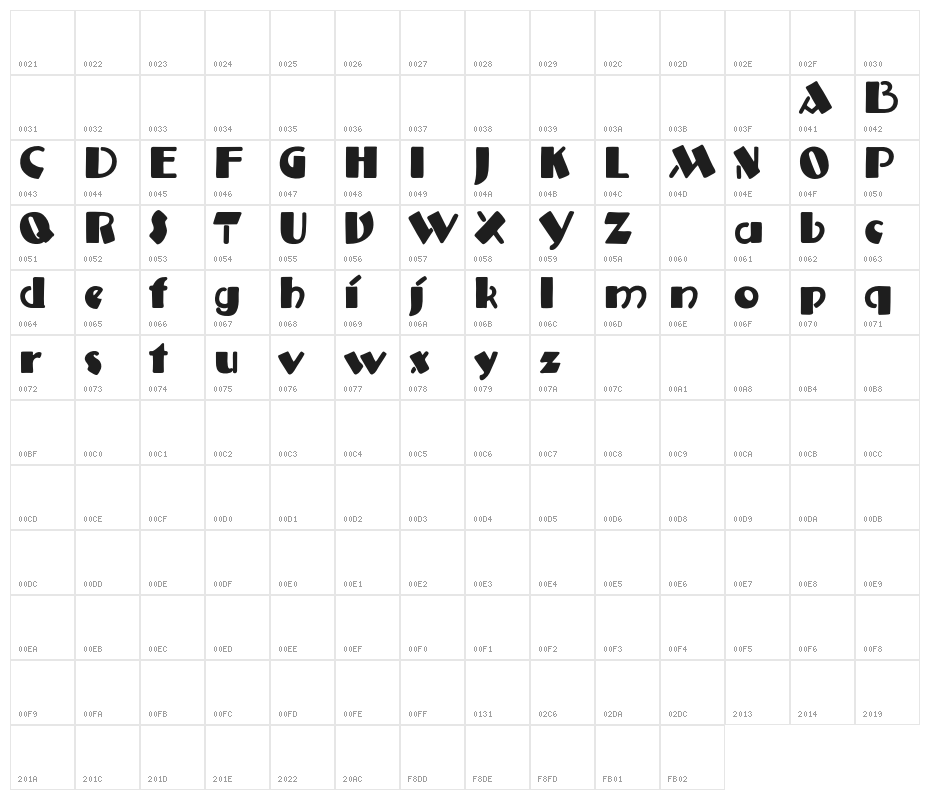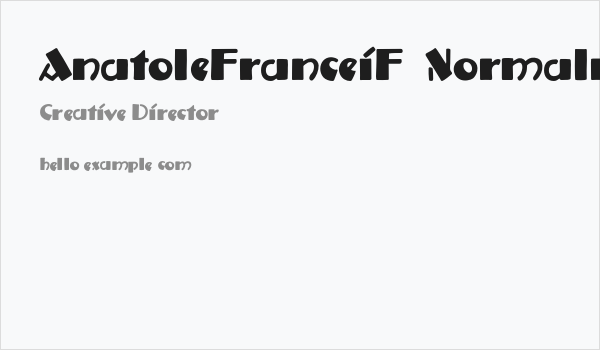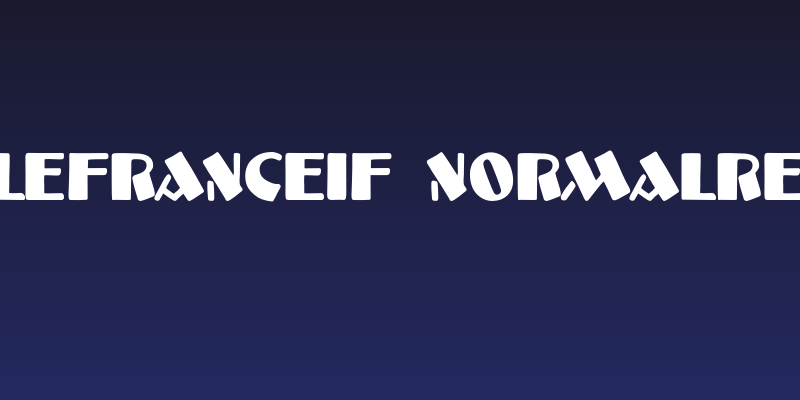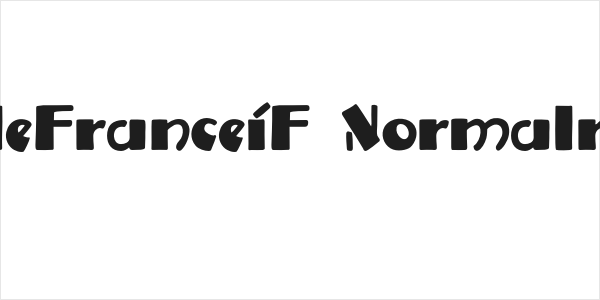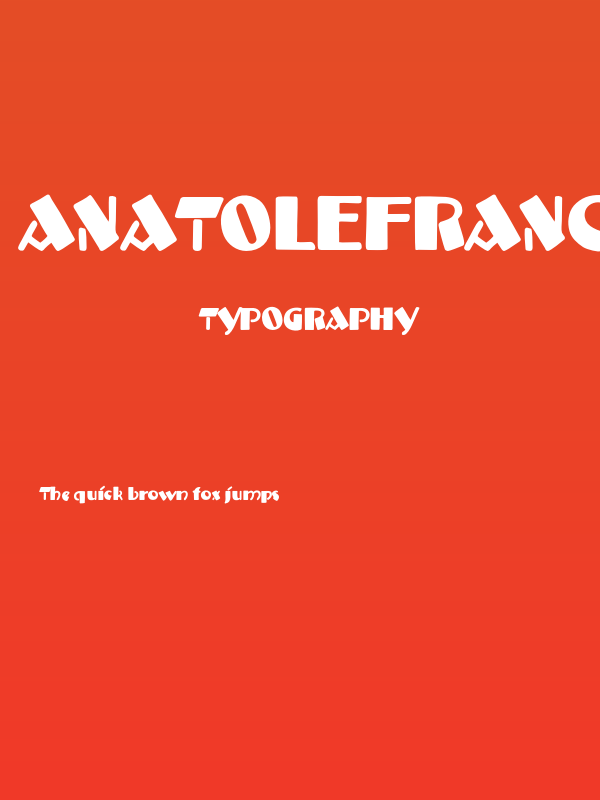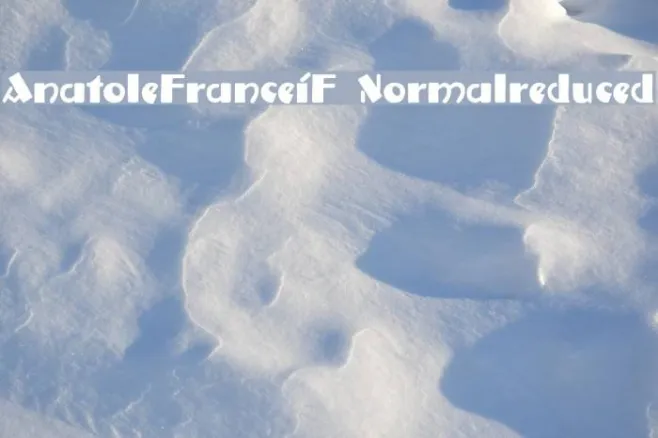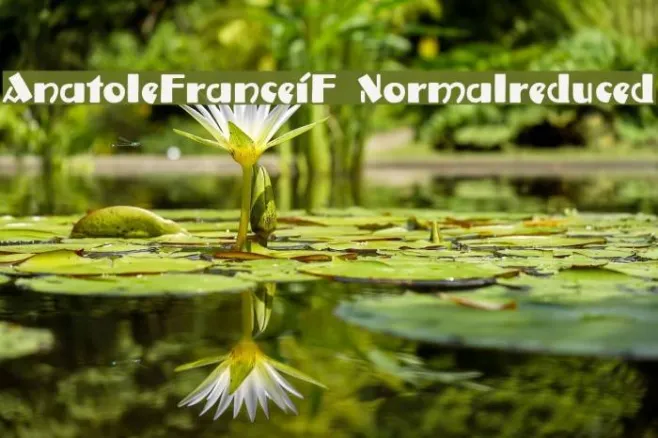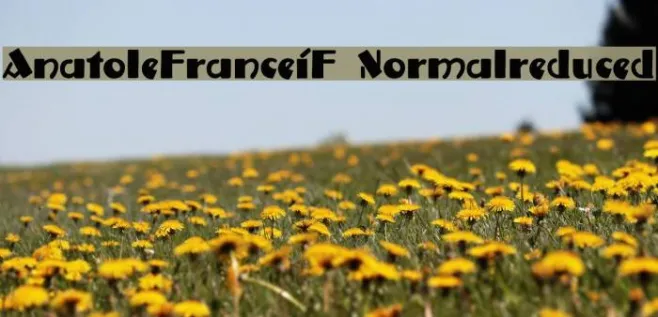
AnatoleFranceiF-Normalreduced Font
AnatoleFranceiF-Normalreduced Description
This font features a bold, artistic style with a unique blend of geometric and organic shapes. The uppercase letters exhibit a strong, angular design with pronounced curves and sharp edges, creating a dynamic and eye-catching appearance. The lowercase letters maintain a similar aesthetic, with some characters incorporating subtle flourishes that add a touch of elegance. The numbers and special characters are consistent with the overall style, offering a cohesive look across all glyphs. This font's distinctive design makes it suitable for creative and decorative applications, where a bold statement is desired.
| Proposed Projects | This font is perfect for projects that require a bold and artistic touch, such as posters, album covers, branding materials, and creative logos. |